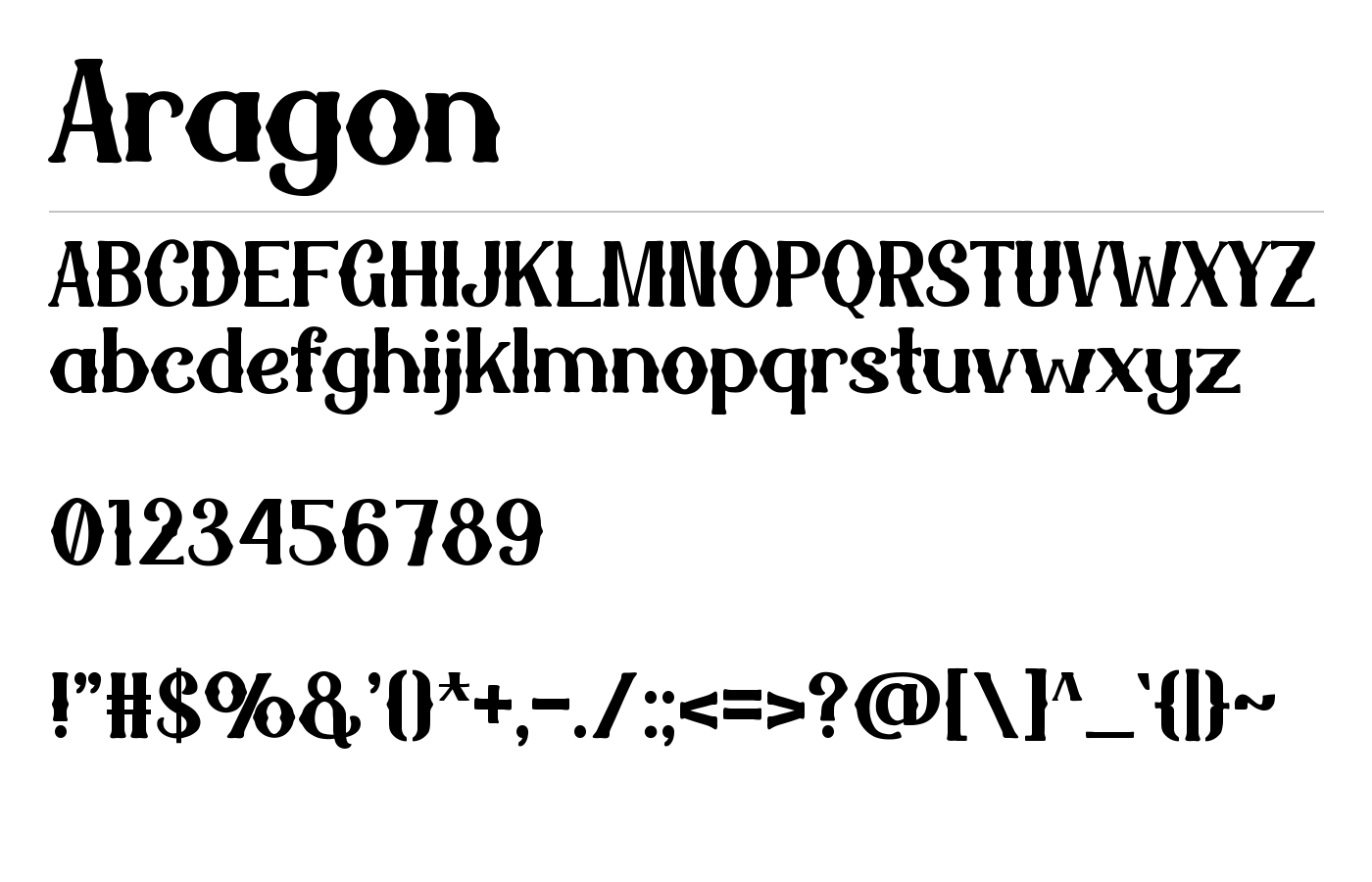
Aragon is a bold serif font with a distinctive, slightly condensed structure and medium contrast between thick and thin strokes. It features bracketed serifs and unique letterforms that blend classic charm with a quirky, vintage feel, making it ideal for eye-catching headlines, branding, and packaging where a strong, characterful presence is desired. This font works well in creative and retro-inspired designs that want to convey personality with a touch of elegance.
Aragon Font
About Aragon Font